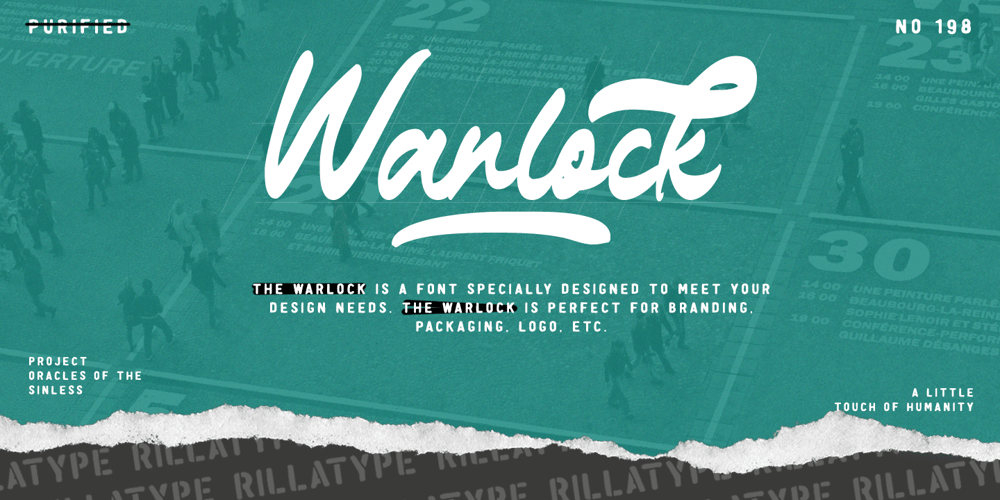
The Warlock
The Warlock font
The Warlock Font Family was designed by Gustian Agung Asprilla and published by Rillatype. The Warlock contains 1 styles and family package options. Introducing, our latest font The Warlock! The Warlock is a font that specially designed to meet your design needs. The Warlock is perfect for branding, packaging, logo, etc. to access the underline swash simply type underscore + number 1-4 in the middle of your word. example, War_1lock, War_2lock, War_3lock, War_4lock.Features : lowercase and uppercase numbers and punctuation swash multilingual PUA encodedstylistic alternates character